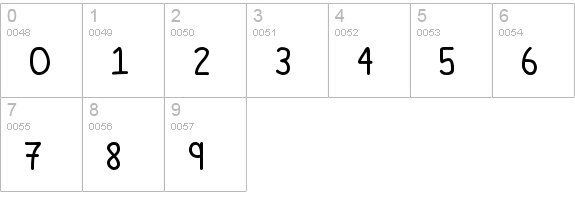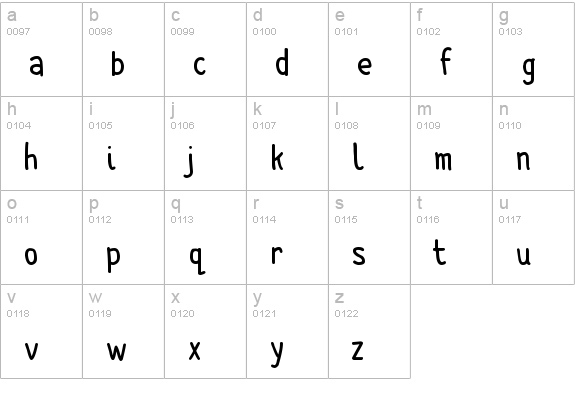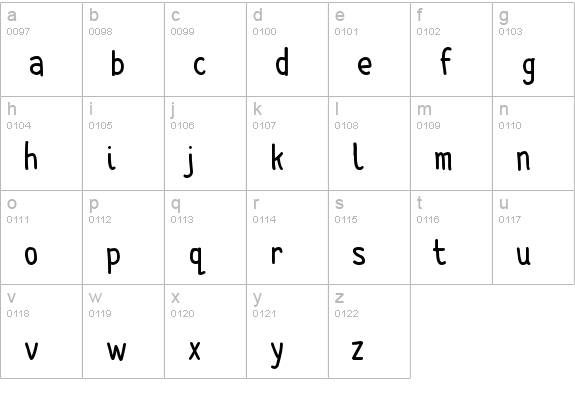
Comic Spans Font Details
Introducing Comic Spans font - a whimsical and playful typeface perfect for adding a touch of fun to your designs. This font features quirky letterforms with exaggerated curves and playful angles, making it ideal for comic books, children's books, posters, and more. Its bold and expressive style is sure to stand out and capture attention. But that's not all - the best part is that Comic Spans font is completely free for personal and commercial use! You can easily download this font from FontsMarket.com and start using it in your projects right away. So why wait? Add a splash of creativity to your designs with Comic Spans font today!